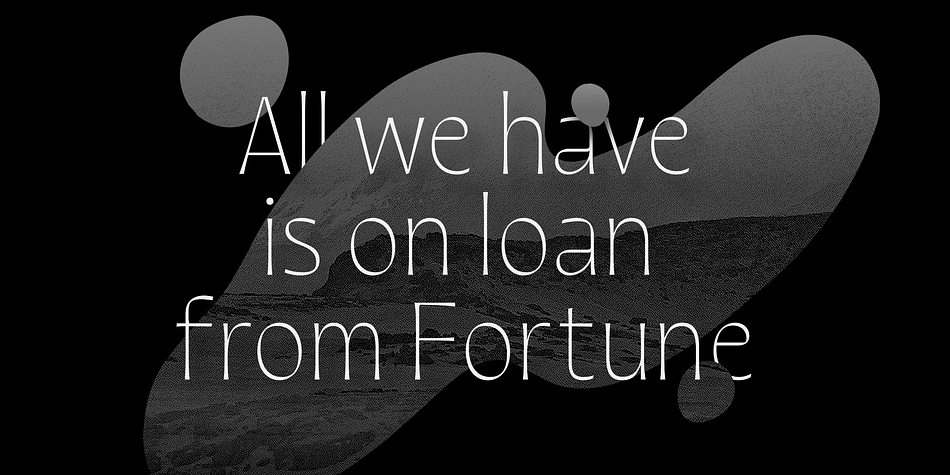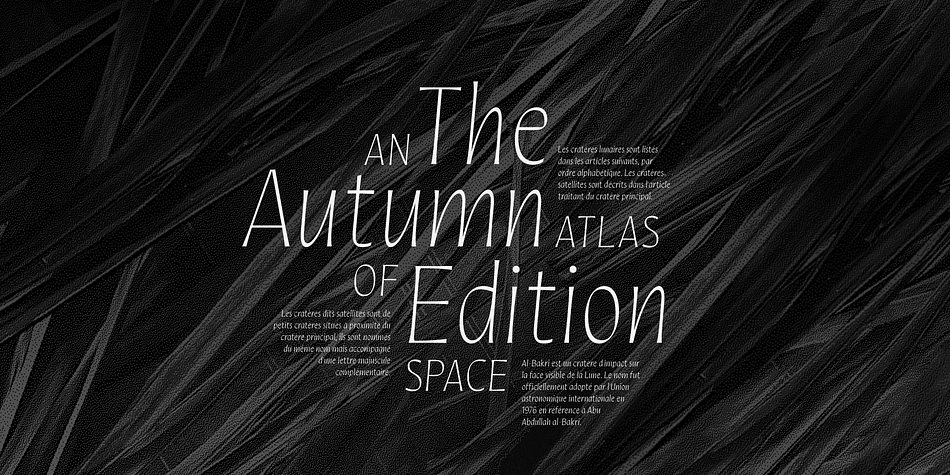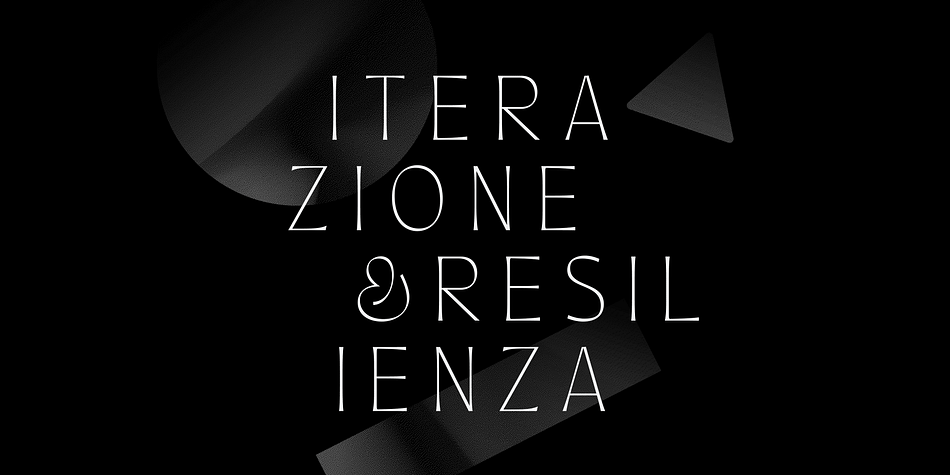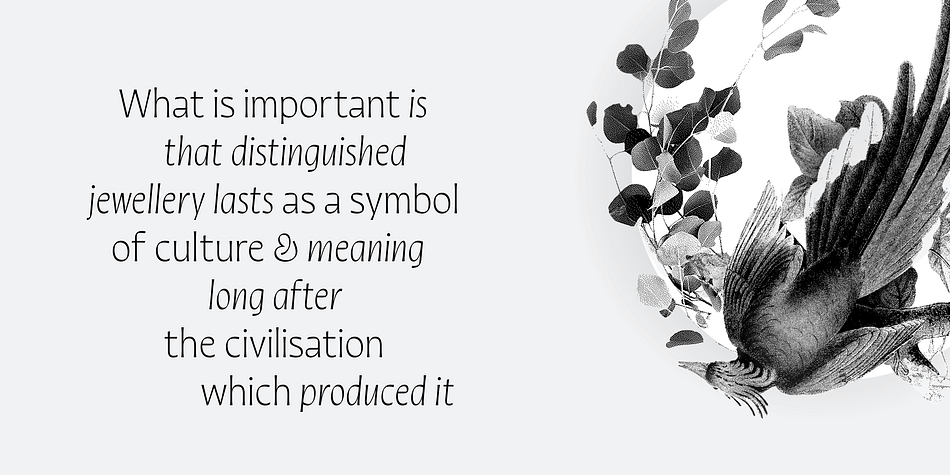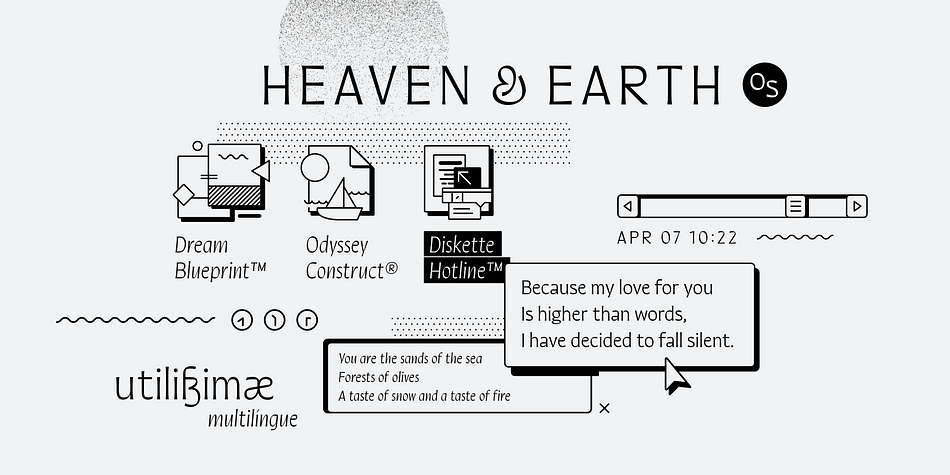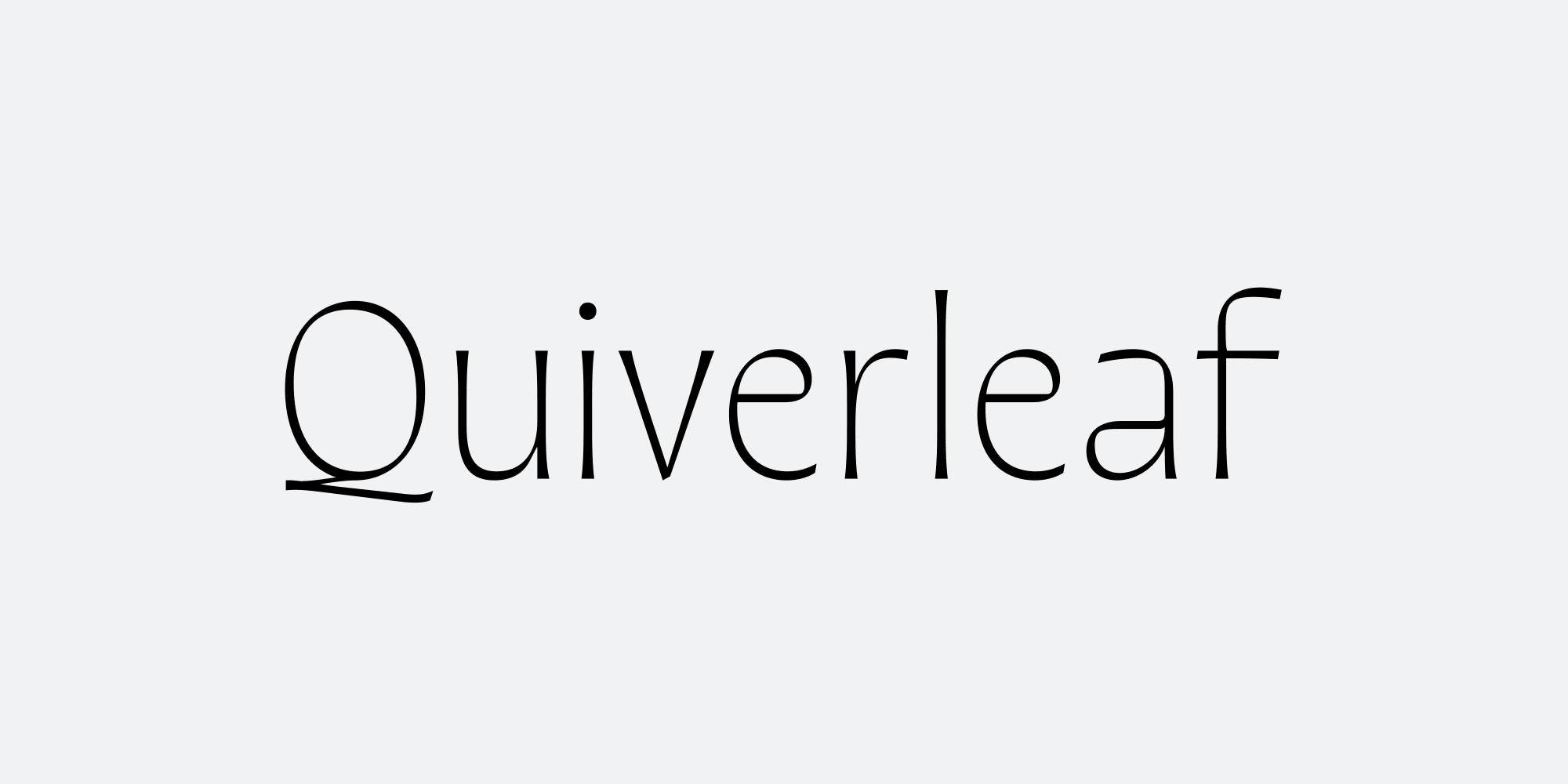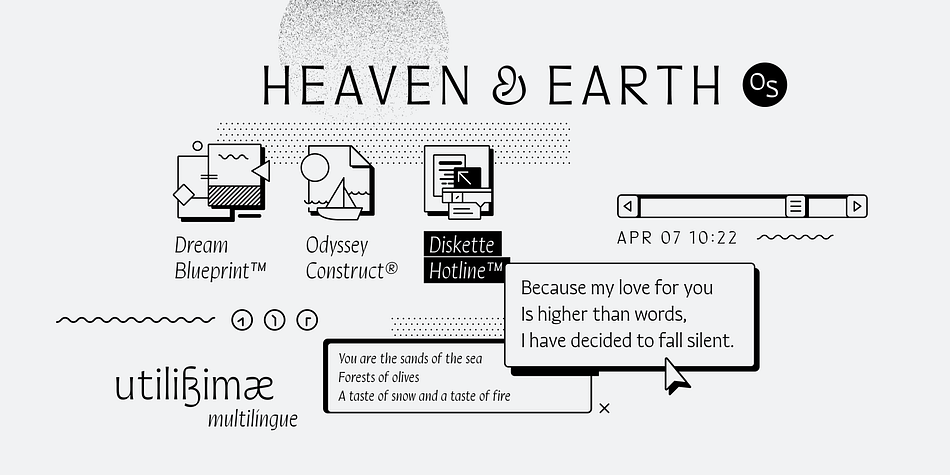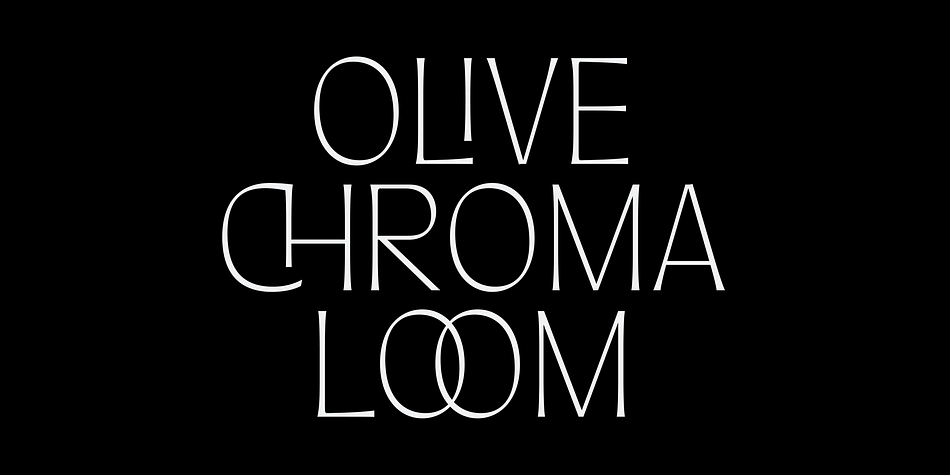
Designed by Connary Fagen, Quiverleaf CF is a display sans and sans serif font family. This typeface has ten styles and was published by Connary Fagen Type Design.
With the graceful movement of a ribbon, Quiverleaf CF glides effortlessly from letter to letter. Five weights – from a delicate thin to a hearty extra bold – combine with striking italics and wide language support for a well-rounded and expressive typeface. Quiverleaf’s versatile design allows for both beautiful text and airy headlines.